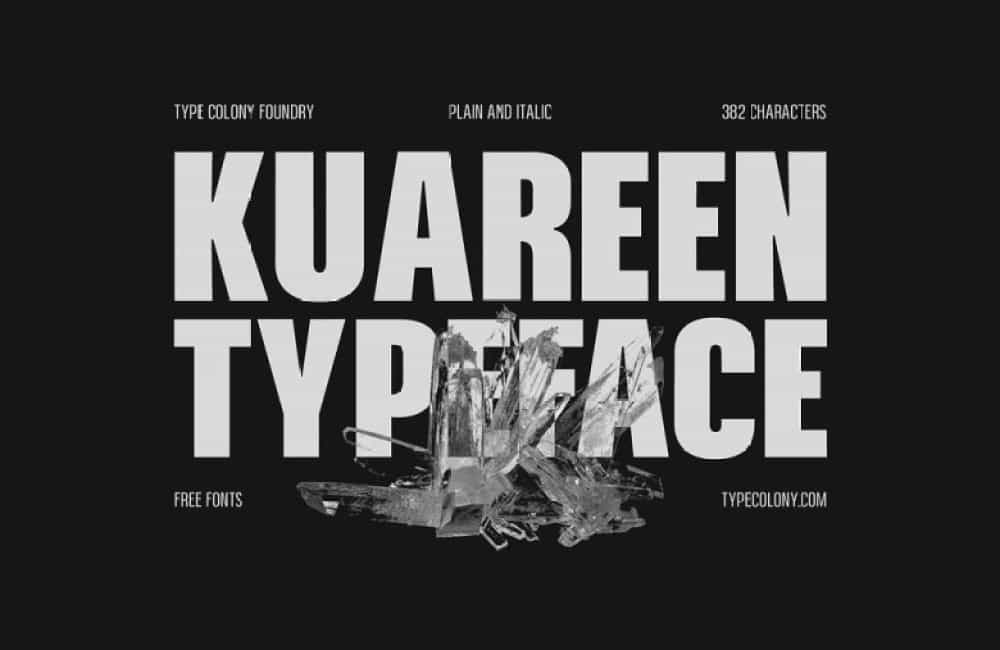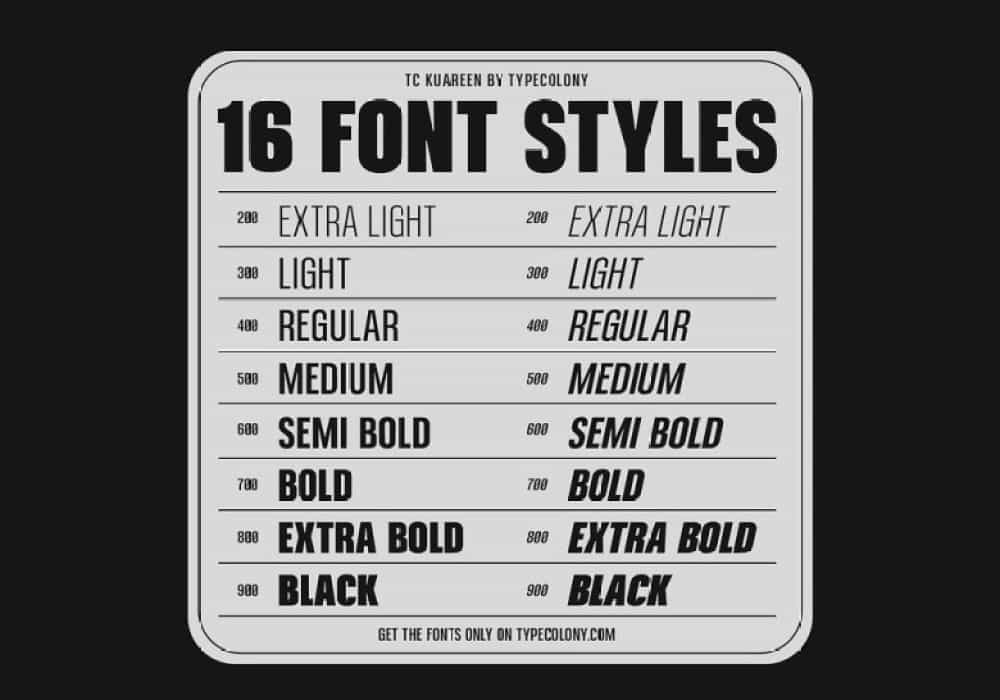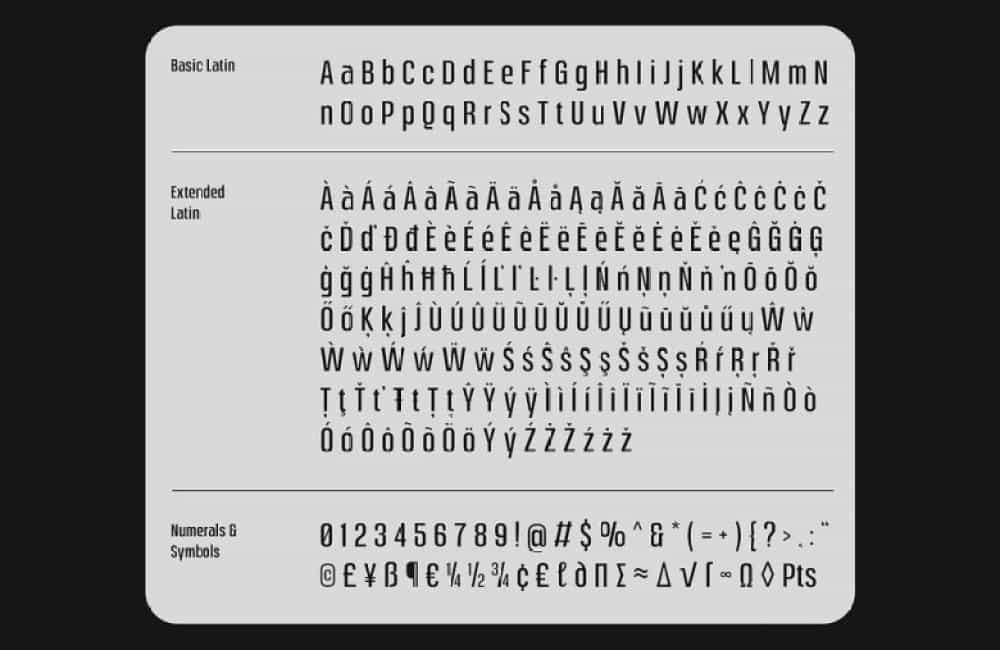
Kuareen by TCis a condensed font designed for large titles with distinct forms as display fonts in modern usage. It’s flexible enough to be used both digitally and on print media – logos branding packaging websites posters headlines among other uses! Available with 16 weight options (both slanted and upright styles), Kuareen can accommodate many design needs across various forms.